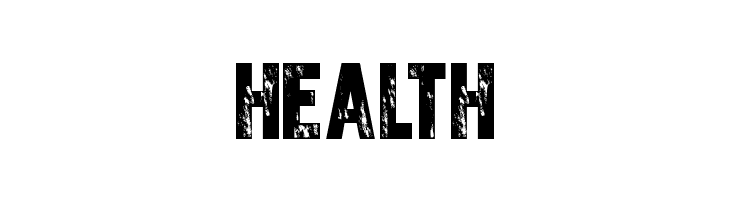
• PrimarySchool
A bold, modern sans-serif font with geometric shapes and consistent stroke widths.
• Iregula
A bold, geometric font with angular shapes and a modern, edgy style.
• Ultramarine
A bold, geometric font with a futuristic and modern style.
• Masterblast
• Blissful Thinking
A playful, casual handwritten font with rounded edges and moderate thickness.